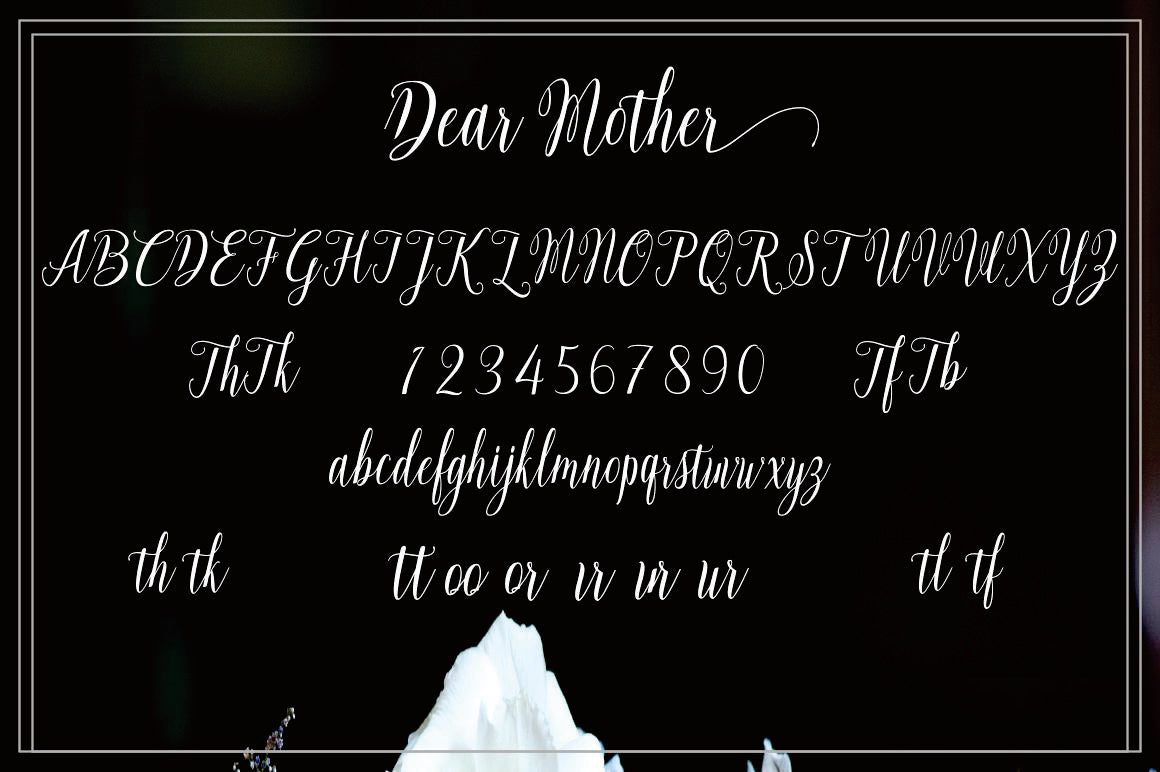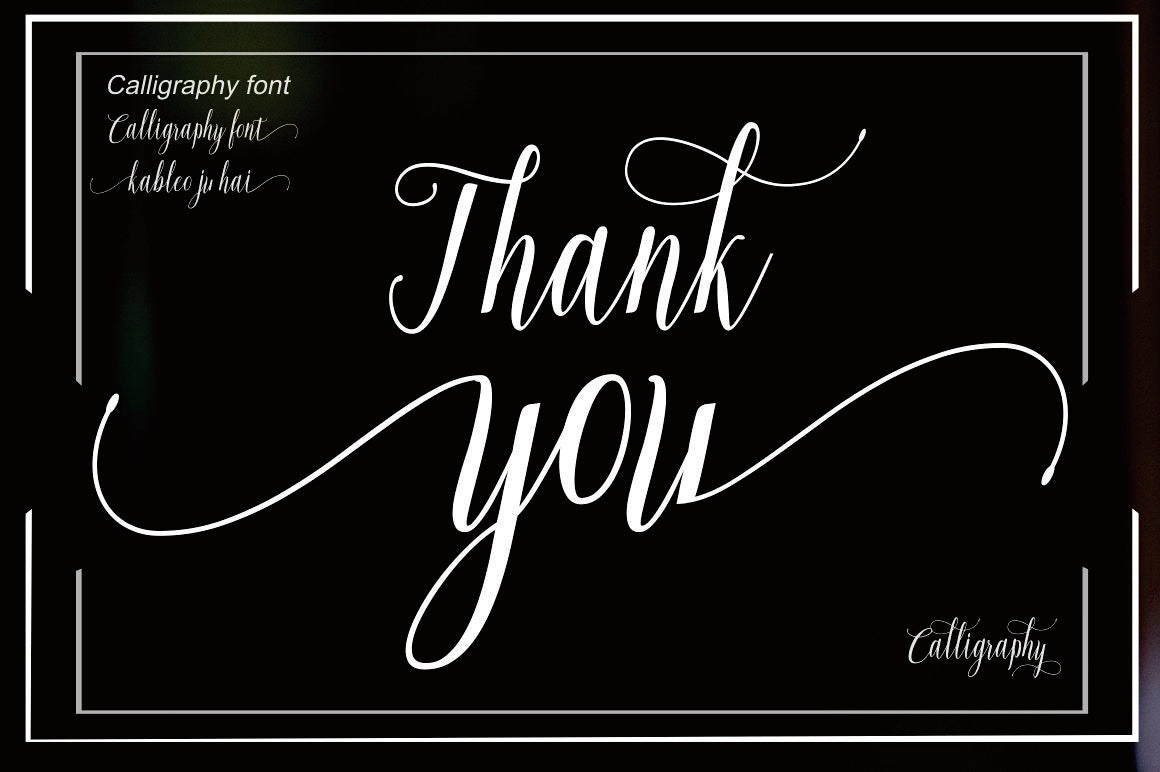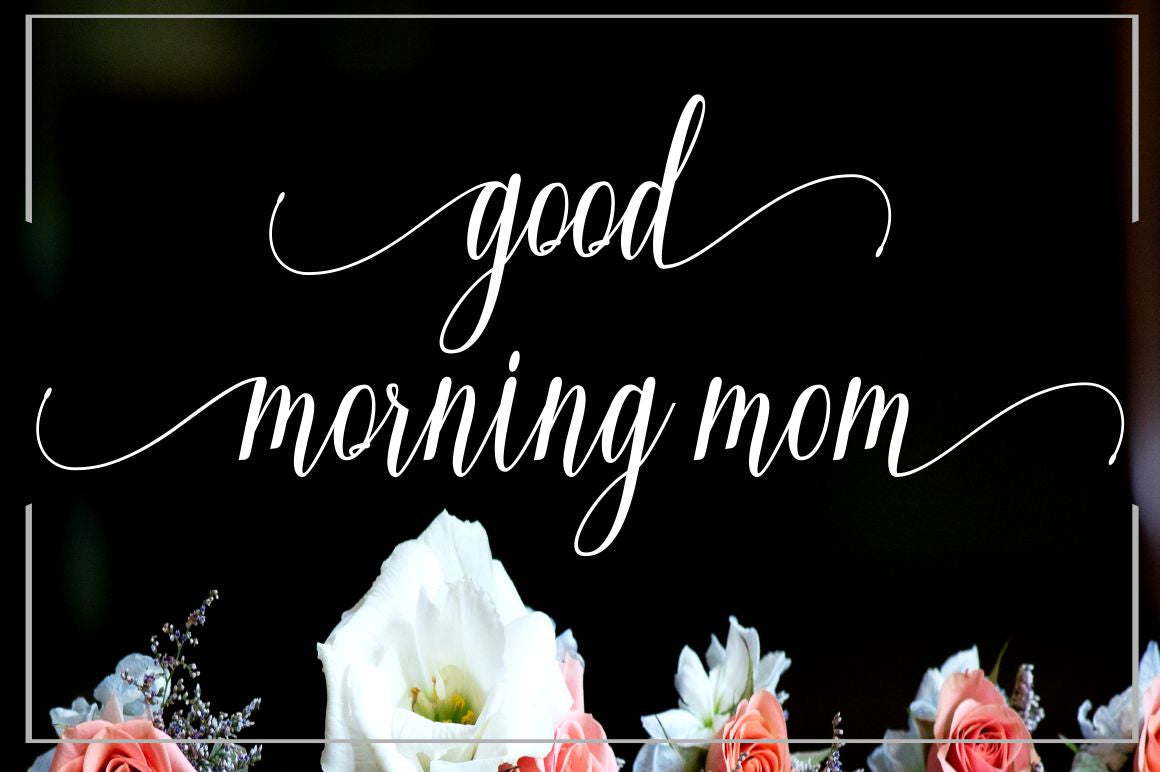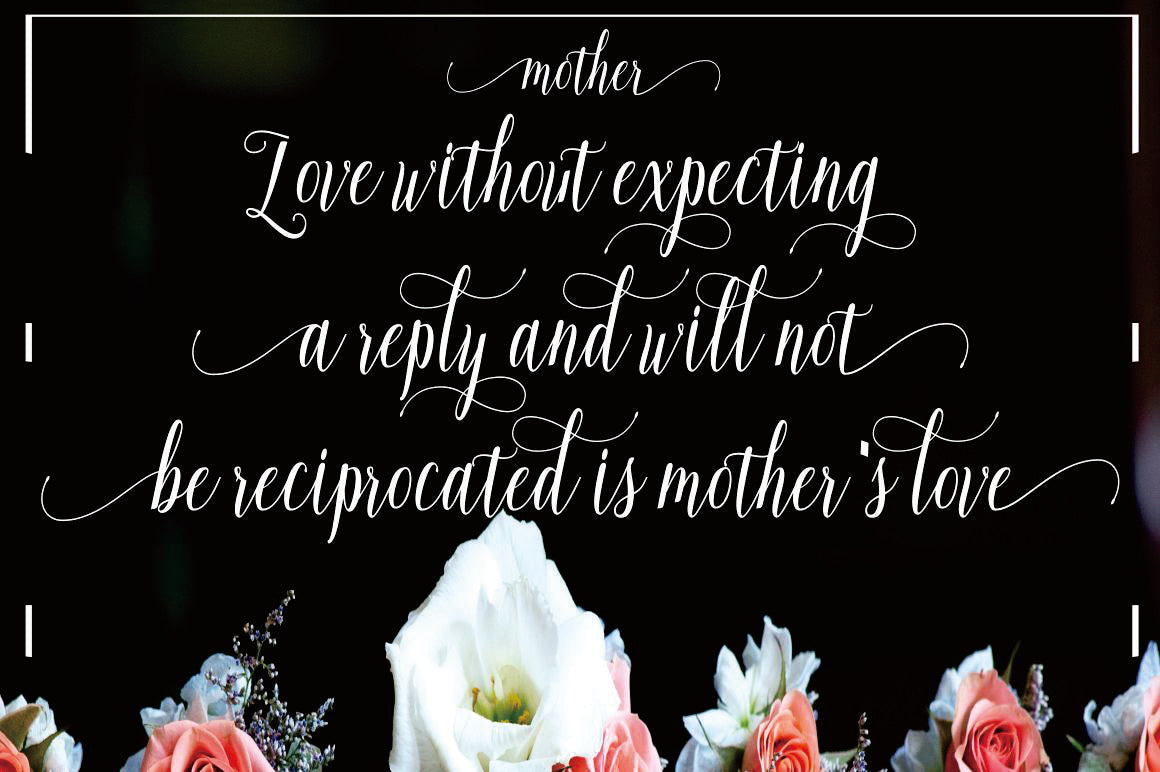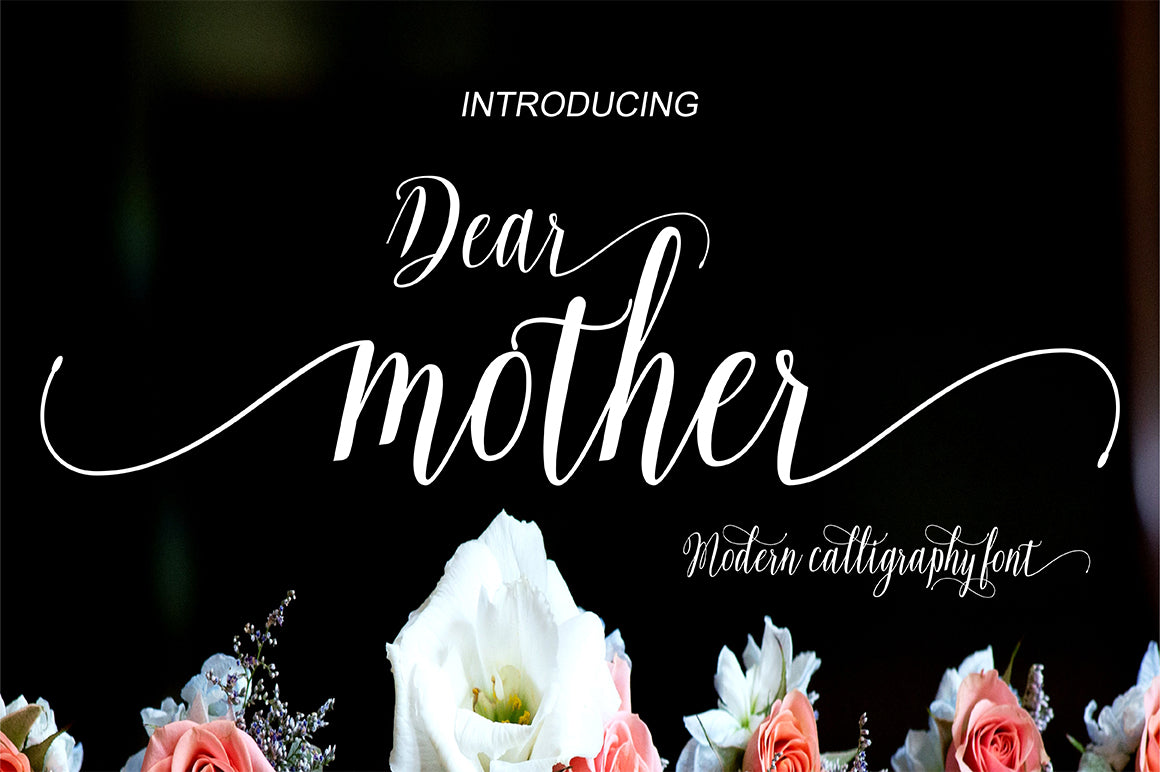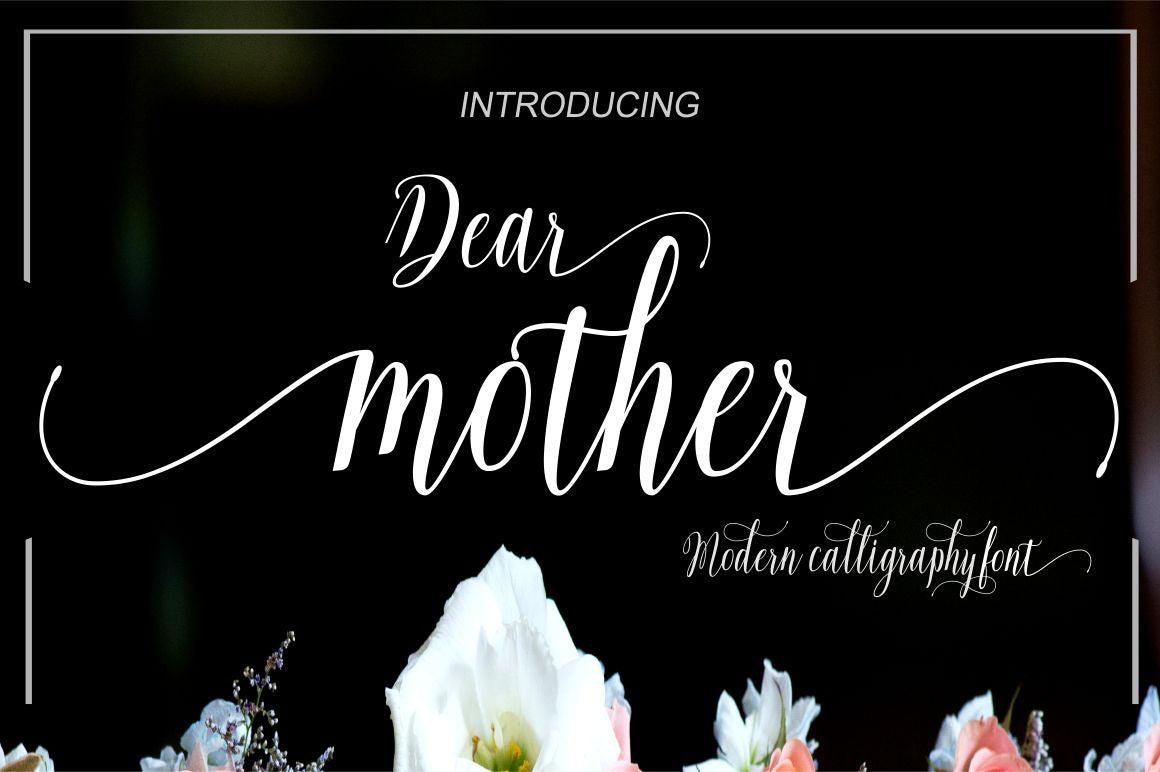
Dear Mother
About Dear Mother
Dear Mother is a cute and elegant script font with a romantic touch. This font is perfect for many uses, such as wedding invitations, greeting cards, social media quotes, branding, logos, and more. This font is PUA encoded, which means you can access all the glyphs and sweeps with ease!